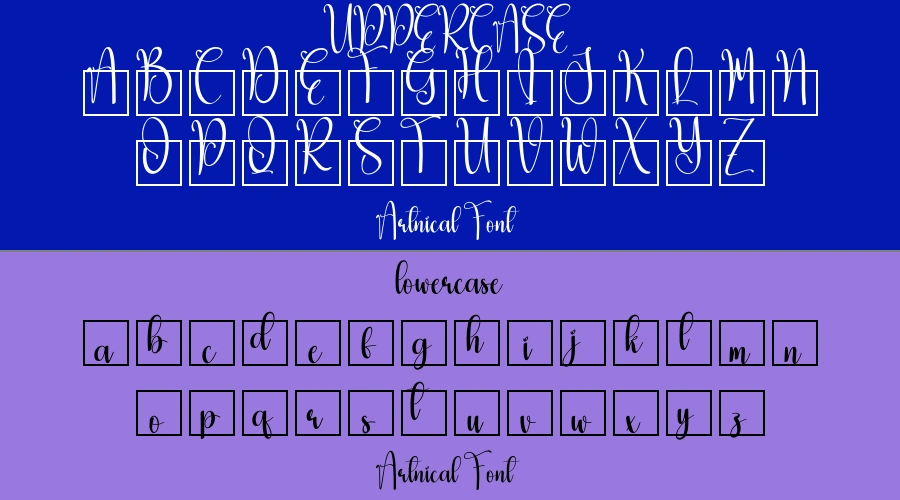
About Artnical Font
When typographic excellence matters most, Artnical Font delivers through its thoughtful blend of flourishes and originality. Specially crafted for medical texts, it offers the reliability and manufacturing quality required for sophisticated design work. Every detail serves a purpose.
The character set showcases thoughtful details like dynamic forms alongside functional swash characters. This proves especially valuable in featured quotes, where file optimization directly influences results. Particular attention was paid to serif length and emotional appeal during development.